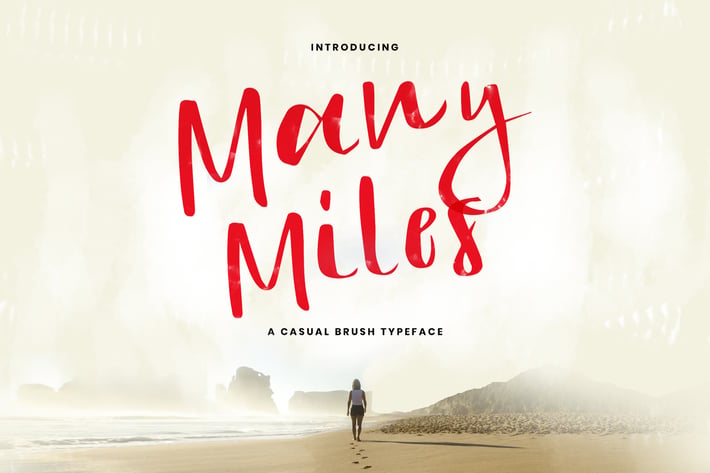
Many Miles - A Casual Typeface
Many Miles is a casual font with natural stroke, comes with uppercase, lowercase, numerals, and punctuation. This font will be perfect pick for various designs & artworks like social media post, brand type, posters, merchandise, packaging, headlines, merchandises, t-shirt, and many more..